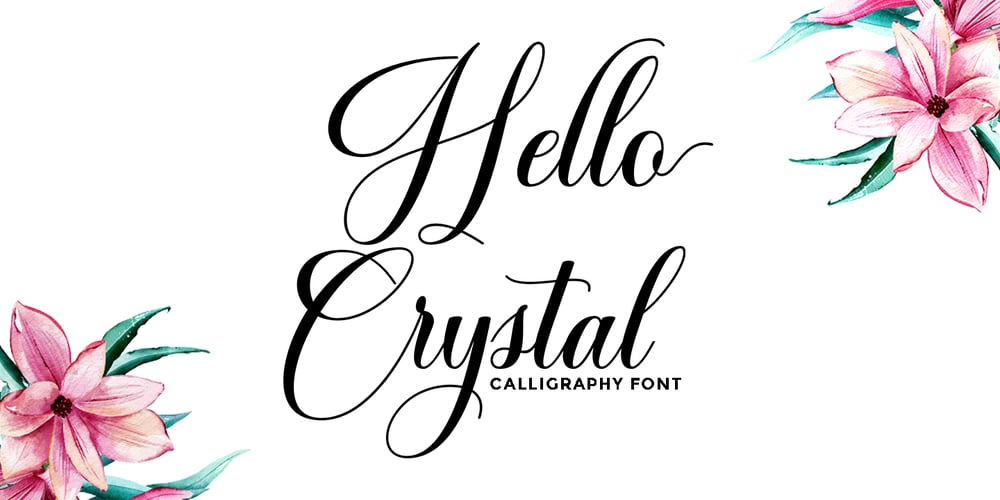
Hello Crystal Script Font Family was designed by Romi Rahmadi and published by Romie Creative. Hello Crystal Script contains 1 styles and family package options. Hello Font Lovers… Introducing my latest font “Hello Crystal Script”! Hello Crystal Script is a modern calligraphy font that features a varying baseline, smooth line, classic and elegant touch. Can be used for various purposes.such as headings, signature, logos, wedding invitation, t-shirt, letterhead, signage, labels, news, posters, badges etc.To enable the OpenType Stylistic alternates, you need a program that supports OpenType features such as Adobe Illustrator CS, Adobe Indesign & CorelDraw X6-X7, Microsoft Word 2010 or later versions.There are additional ways to access alternates/swashes, using Character Map (Windows), Nexus Font (Windows), Font Book (Mac) or a software program such as PopChar (for Windows and Mac).